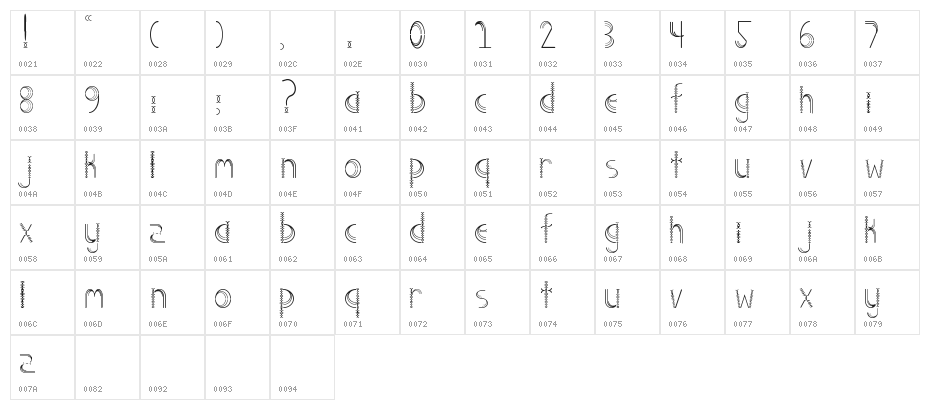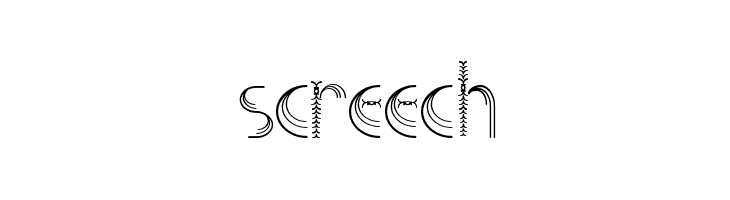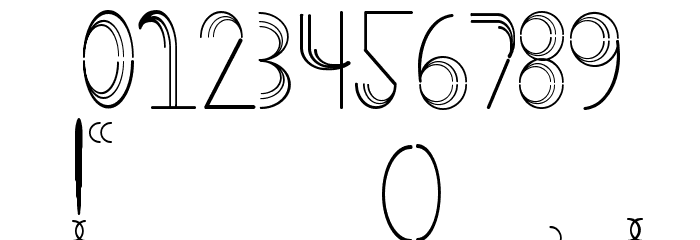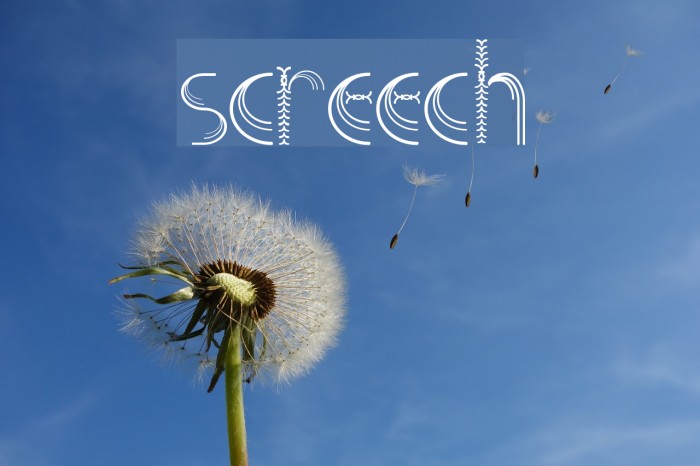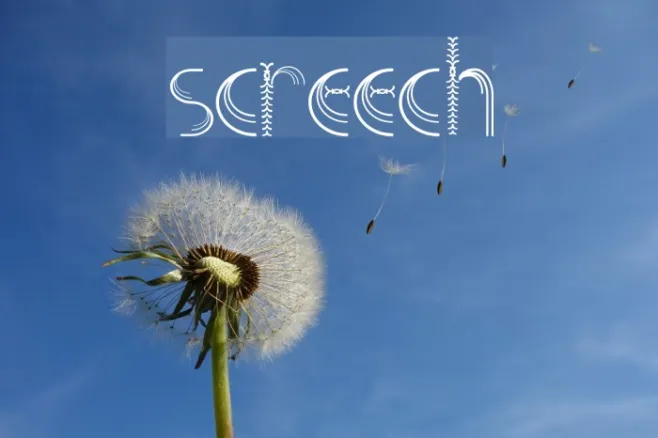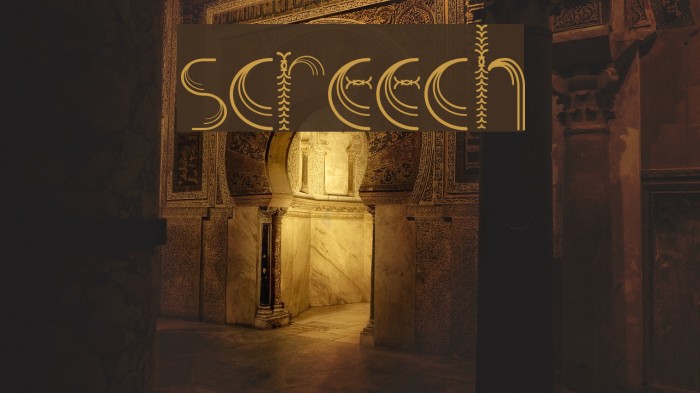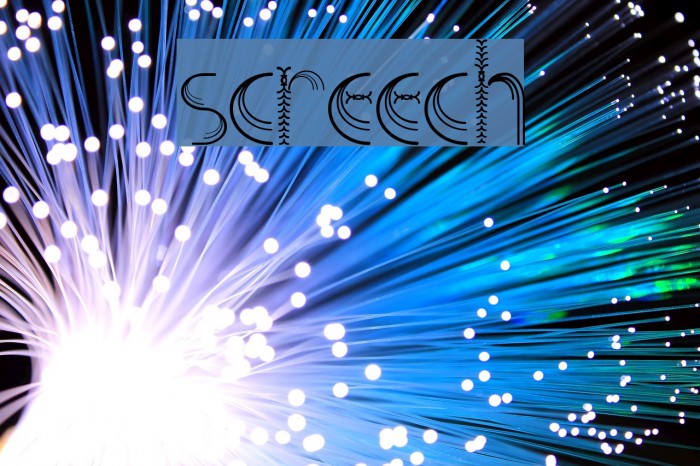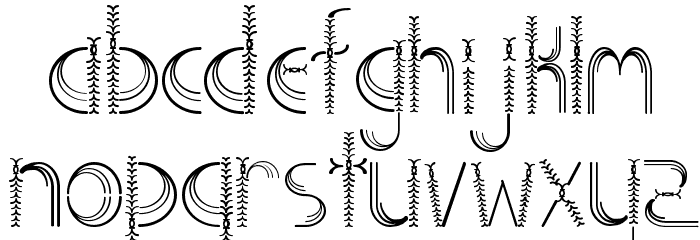
Screech Font
Screech Description
This font features a highly decorative and intricate design, characterized by its unique use of overlapping circular and linear elements. Each character is crafted with a series of concentric circles and lines, creating a visually complex and engaging appearance. The font has a futuristic and avant-garde feel, with a strong emphasis on geometric shapes and symmetry. The letters are consistent in height and width, providing a uniform look despite the elaborate detailing. This font is not suitable for body text due to its complexity but makes a striking impact in larger formats.
SCREECH UPPERCASE
SCREECH LOWERCASE
SCREECH OTHER CHARS
| Overall Style | Futuristic, Avant-garde |
| Proposed Projects | Ideal for use in posters, album covers, or any project requiring a bold, artistic statement. |